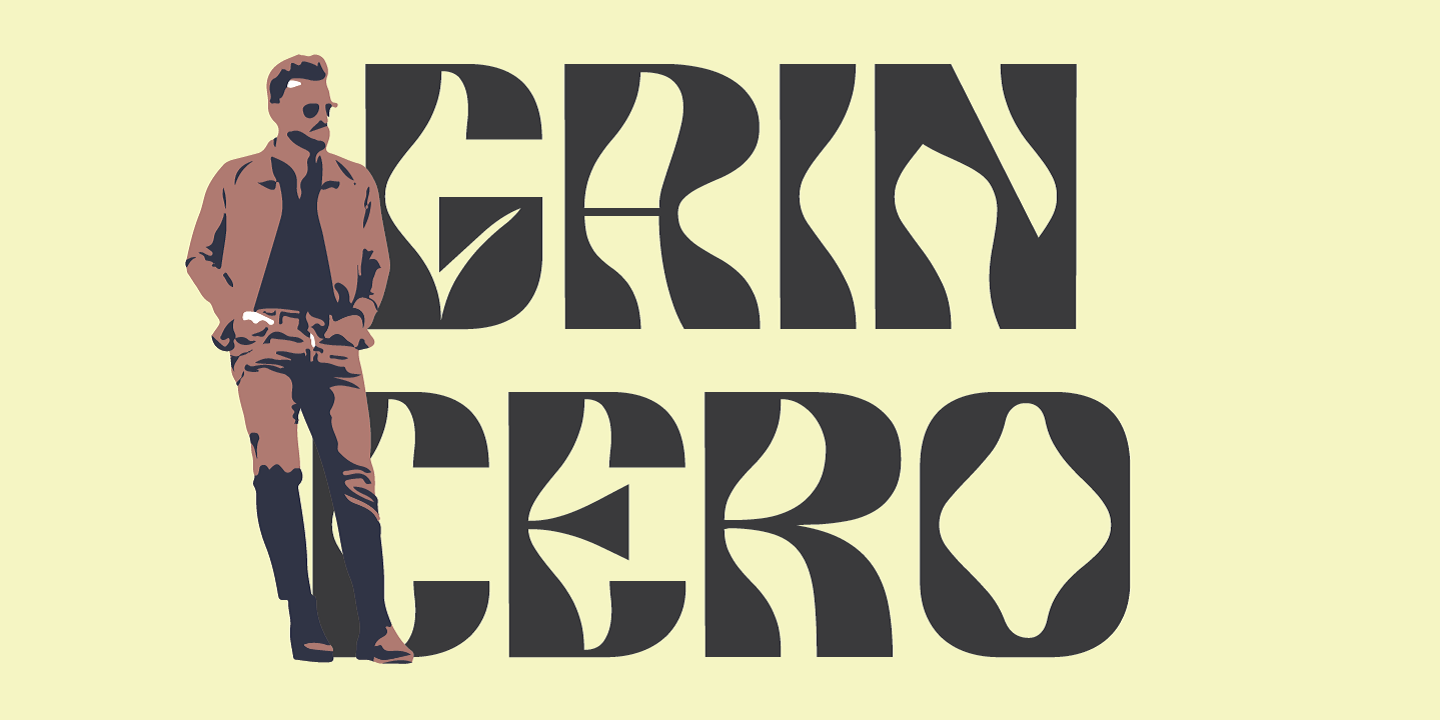
Gaincero Font is perfect for dynamic fitness center branding, powerful motivational campaigns, competitive sports team logos, ambitious business presentations, progressive achievement graphics, winning performance metrics, successful goal-oriented materials, and triumphant leadership identities. This inspiring typeface excels in motivational environments, success-focused applications, and any project requiring progressive momentum that communicates personal growth and achievement excellence through determined visual advancement.
What makes Gaincero Font exciting is its remarkable ability to embody personal growth and achievement momentum through dynamically crafted letterforms that surge forward with unstoppable determination and success-driven energy. The font features progressively designed characters with achievement angles and victory proportions that evoke feelings of personal triumph and goal accomplishment, making it ideal for brands seeking to establish connections with ambitious audiences and communicate through motivational advancement visual language. Its progressive presence ensures immediate recognition of success authenticity and achievement excellence.
Gaincero Font family includes multiple weights and styles: Regular, Bold, Light, Medium, Italic variations, and achievement alternates with motivational embellishments and success decorative elements. Each family member maintains the distinctive progressive character while offering comprehensive design options for motivational campaigns, from inspiring achievement text to commanding victory headlines that establish success authority and motivational credibility through dynamically progressive typography.
Whether you're designing fitness motivation brands or creating achievement-focused campaigns, Gaincero Font Free Download provides the perfect typography solution for success branding needs. This font transforms ordinary text into powerful motivational statements that communicate personal growth and achievement excellence. Fitness centers and personal development companies choose this typeface for its ability to convey progressive determination through dynamically crafted letterforms that advance through designs with achievement momentum and celebrate the beautiful journey of personal success.